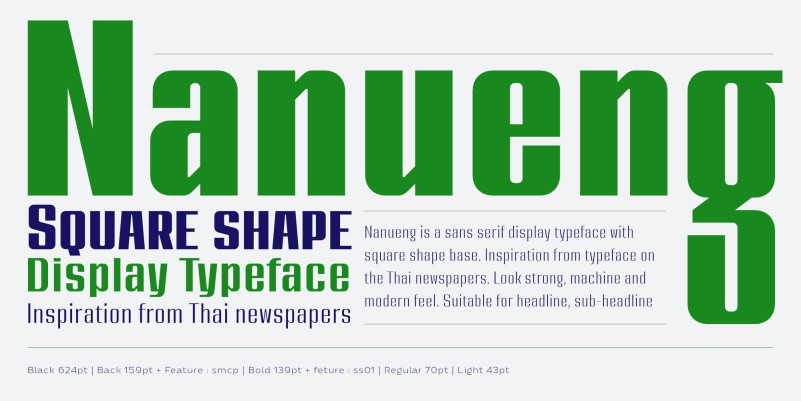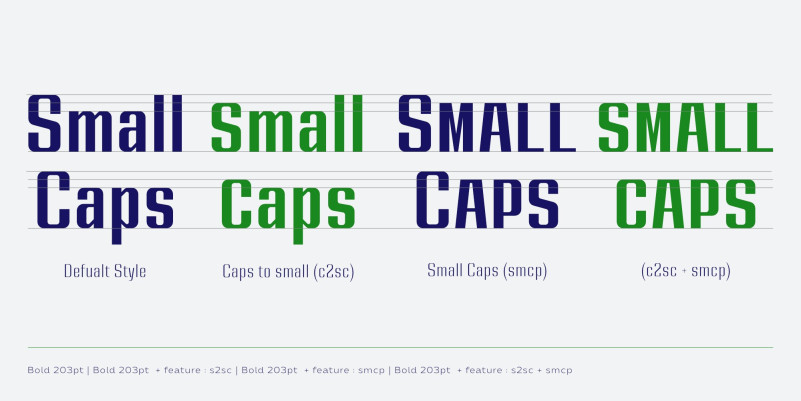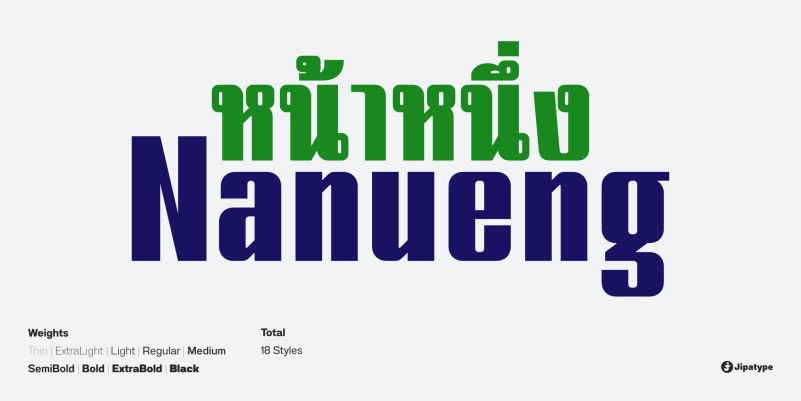
Nanueng Font
Nanueng Sans Serif Font is a sans serif display typeface with a square shape base, inspired by typefaces on Thai newspapers. It has a strong, machine-like, and modern feel. It is suitable for headlines and sub-headlines. It comes with 9 weights and italics of each weight, for a total of 18 styles, and features such as small caps or stylistic set 01 and many others. It also supports multiple languages.